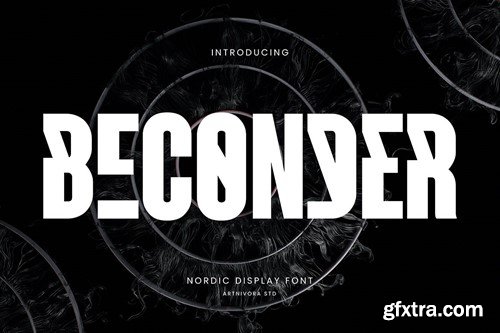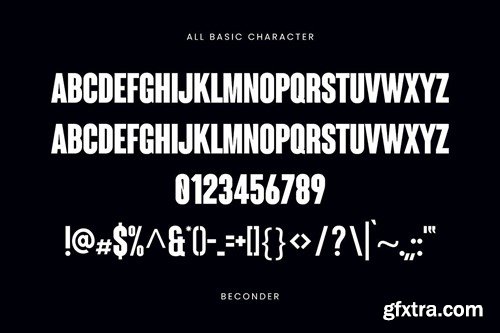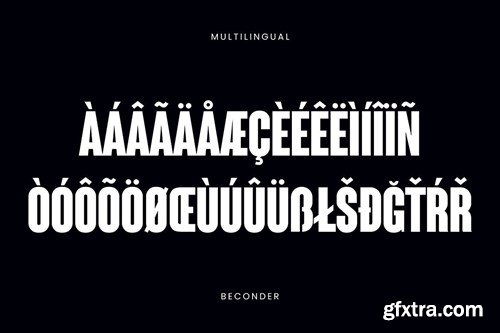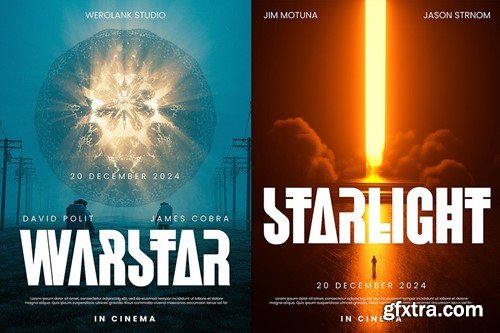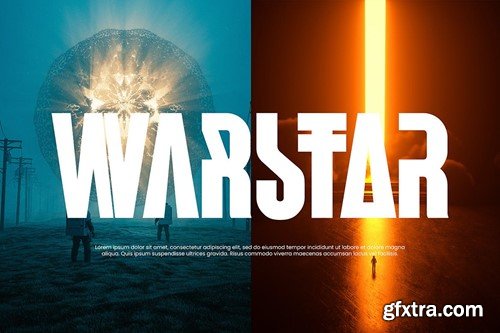
Beconder - Nordic Display Font 9TPS2VF
Beconder - Nordic Display Font
Introducing Beconder, a simple and display font. So perfect for you who needs a typeface for logo designs, magazine, social media, brochure, and many more.